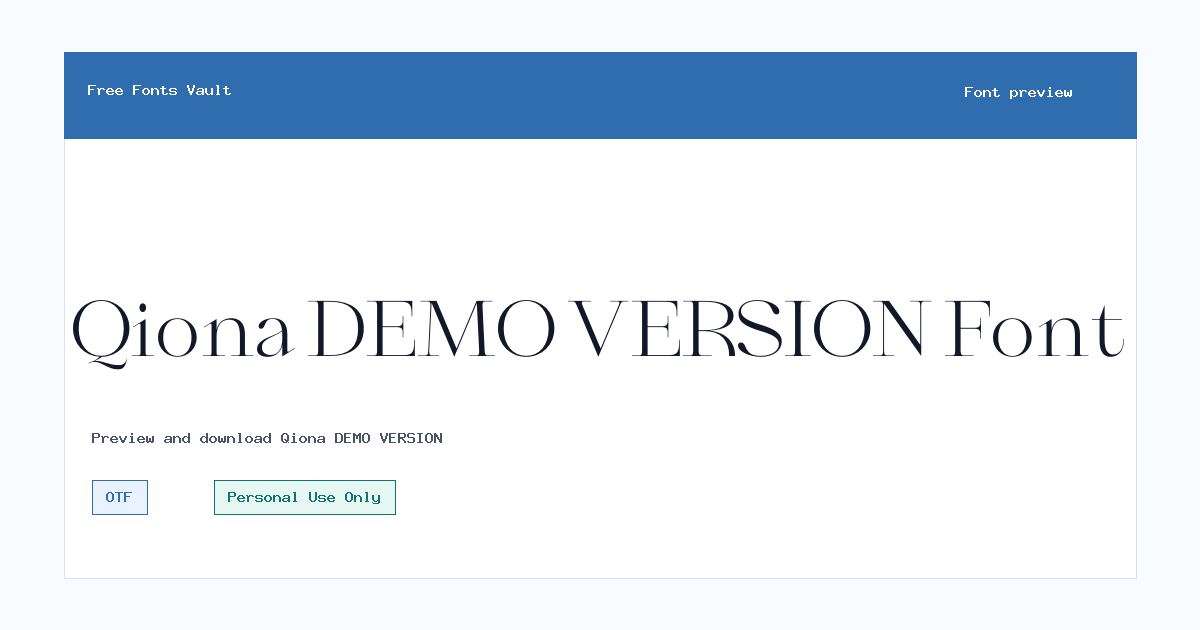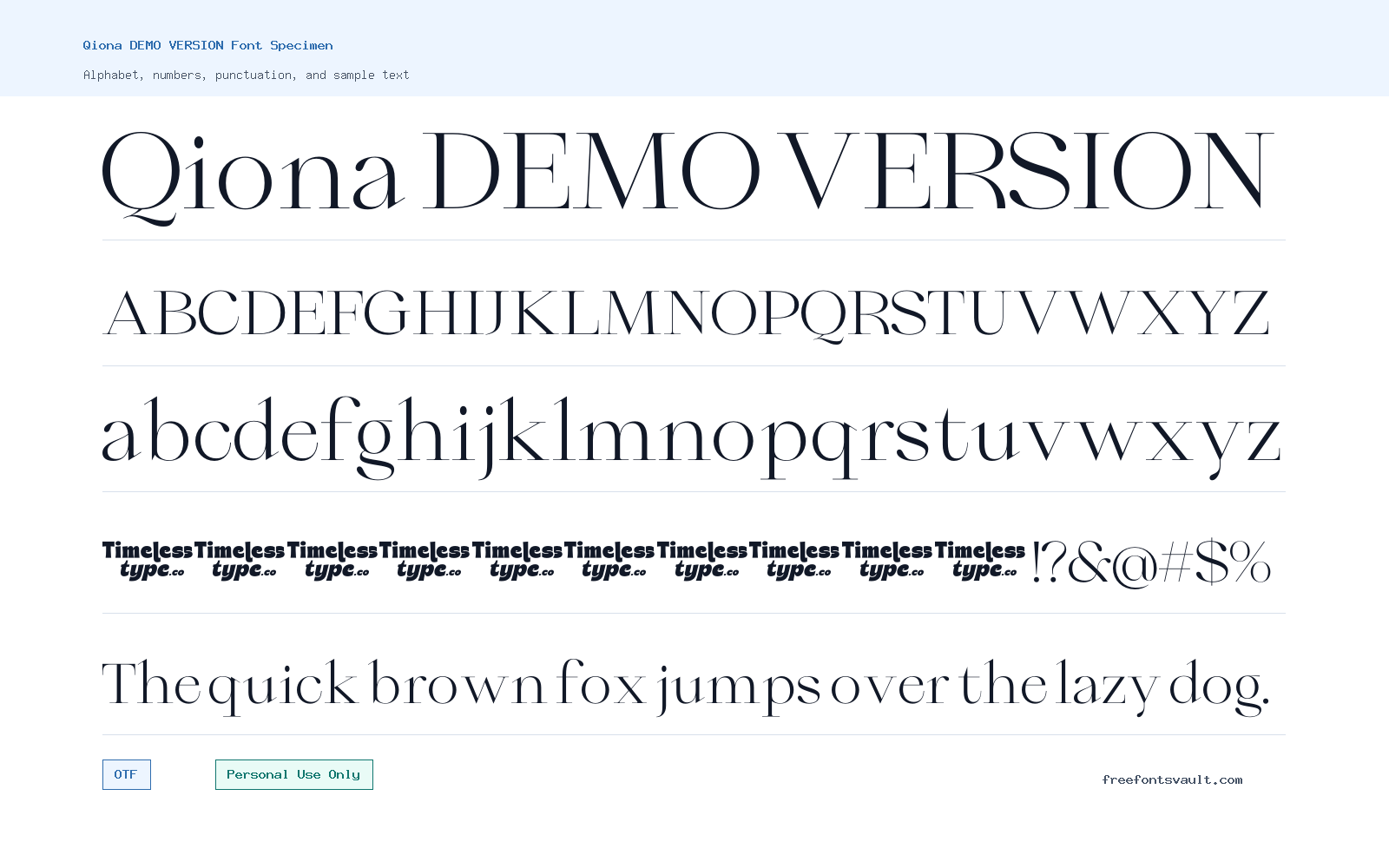
Qiona DEMO VERSION
- Designer Heru Utama Putra
- Foundry TimelessType
Qiona DEMO VERSION is a serif font with a polished display feel, suited to visitors who want to test elegant title lettering before using it in personal design work.
About Qiona DEMO VERSION Font
Qiona DEMO VERSION is the demo version of Qiona, a serif font credited to Heru Utama Putra and TimelessType. The font file is supplied in OTF format with a regular style and normal 400 weight, making it straightforward to install and test in common design apps. Because this is a demo version, it is best treated as a preview or personal-use font rather than a complete commercial font family. The name suggests a refined serif direction, and the safest way to judge it is through the live preview: type short words, names, headings, and brand-style phrases to see how the letterforms behave at different sizes.
For design work, Qiona DEMO VERSION is most useful where the text is short and visual tone matters. Try it for personal posters, quote graphics, invitations, mood boards, portfolio mockups, editorial-style headers, packaging concepts, or logo drafts that are not being delivered as commercial work. Serif display fonts often look strongest when given space, so test wider tracking, larger sizes, and simple layouts before using it in dense text. If you are exploring logo ideas, focus on a few key letters first: check how the capitals, curves, spacing, and repeated letters look together. If the wordmark feels too delicate or decorative at small sizes, keep Qiona for the main title and use a simpler font for supporting information.
Qiona DEMO VERSION can also be helpful for web and social mockups, especially when you want a graceful headline style without committing to a paid or commercial license yet. Use it in static personal previews, draft landing pages, presentation images, or concept boards to test the direction of a project. For body copy, menus, captions, product details, and long paragraphs, pair it with a plain sans serif or a restrained text serif. A neutral companion font will keep the layout readable while allowing Qiona to carry the decorative or premium-feeling part of the design.
When pairing Qiona DEMO VERSION, avoid placing it beside another highly stylized display face. Two strong display fonts can compete and make a design feel crowded. A safer pairing is a clean sans serif for navigation, small labels, dates, author names, and descriptions. If the design uses a serif companion, choose one that is calm and text-focused rather than another dramatic headline font. Keep the color palette simple while testing the font, because contrast, spacing, and size will show you more about whether the typeface fits the project.
- Serif demo font suited to short display text, titles, and visual mockups
- Personal posters and quote graphics
- Invitation and stationery concepts
- Editorial-style headings and portfolio mockups
- Logo exploration and brand direction drafts
- Web page hero text mockups
- Packaging or label concepts for personal presentation work
Qiona DEMO VERSION is credited to designer Heru Utama Putra and the foundry TimelessType.
Use Qiona DEMO VERSION mainly for short, prominent text. Test your exact wording in the preview, especially logos, names, and headings, because display serif fonts can change character depending on spacing and size. Pair it with a neutral sans serif or a simple text font for paragraphs, captions, and interface details.
What kind of projects is Qiona DEMO VERSION good for?
It is best for short personal-use designs such as posters, invitations, display headings, logo drafts, mood boards, and web mockups.
Is Qiona DEMO VERSION good for body text?
It is better suited to short display text. For long paragraphs, pair it with a more readable text font or a clean sans serif.